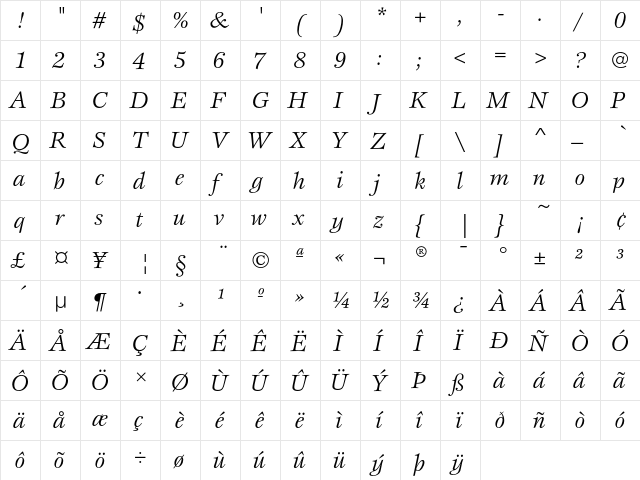
EspritEF BookItalic
Design Context for EspritEF Typeface
EspritEF is a composed and adaptable typeface that performs quietly and consistently across a wide range of design contexts. The dynamic lean of this cut emphasises speed and emphasis in any layout.
Pro Tip: Use EspritEF for emphasis, pull quotes, and subheadings where its slanted energy can add rhythm to the layout.